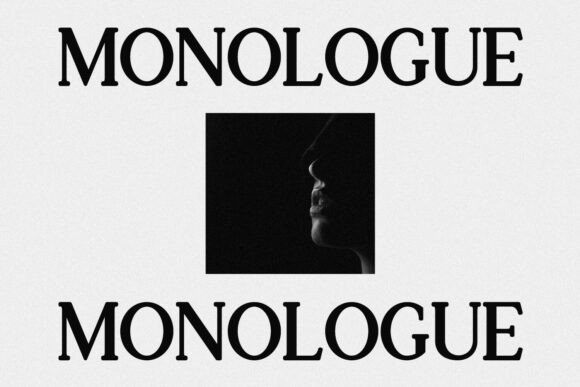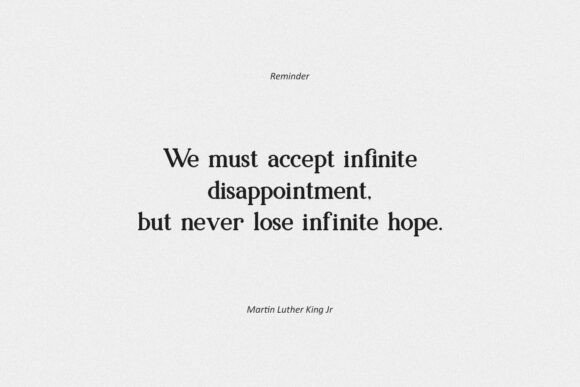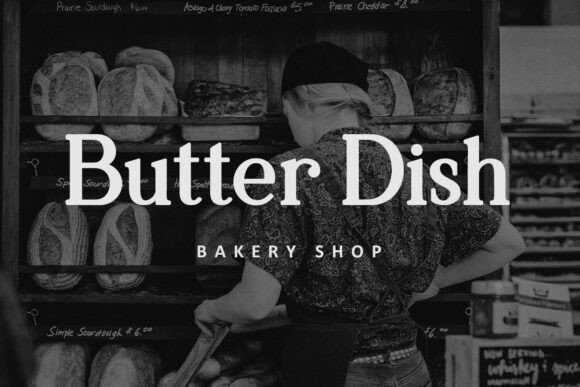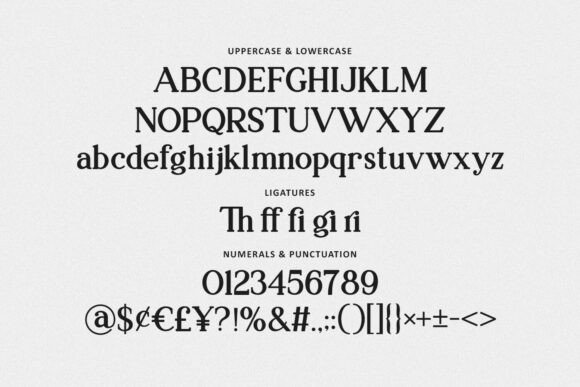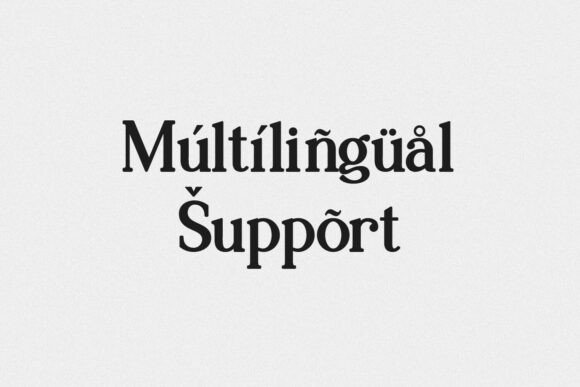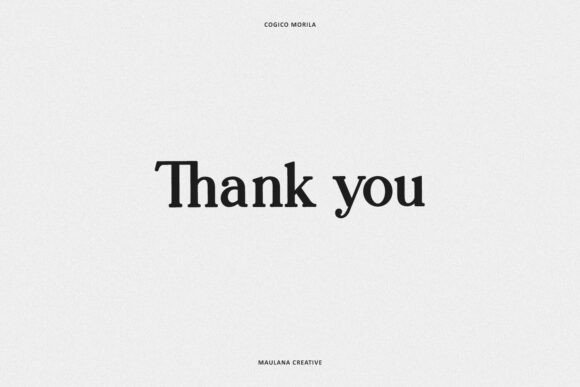
Cogico Morila Font: A Timeless yet Fresh Serif Font for Modern Designs
In the world of typography, a font can make or break a design. It’s the foundation upon which the entire visual identity is built. For designers and crafters looking for a serif font that exudes intelligence, confidence, and a touch of creativity, Cogico Morila is an excellent choice. This classic-meets-modern serif font is designed to elevate your typography, bringing a unique blend of elegance and sophistication to your designs.
A Perfect Balance of Tradition and Modernity
Cogico Morila strikes a delicate balance between traditional serif structure and contemporary details, resulting in a timeless yet fresh personality. The font’s elegant curves, distinctive terminals, and carefully crafted ligatures make it perfect for a wide range of applications, from editorial designs and branding to book covers, headlines, and high-impact logos.
One of the standout features of Cogico Morila is its unique approach to serif design. The font’s classic roots are evident in its traditional serif structure, while its modern twist is reflected in the subtle creative edge that sets it apart from more traditional serif fonts. This balance makes Cogico Morila an incredibly versatile font, suitable for both minimalist brand identities and refined magazine layouts.
Distinctive Letterforms and Ligatures
Cogico Morila’s distinctive letterforms are a key element of its appeal. The font’s unique âgâ and other letterform quirks add just the right amount of flair, making it stand out without overpowering your design. The carefully crafted ligatures also contribute to the font’s elegant and sophisticated feel, allowing you to create beautiful, flowing text that engages and captivates your audience.
Cogico Morila is a font that can be used in a variety of contexts, from editorial designs and branding to book covers, headlines, and high-impact logos. Its versatility makes it an excellent choice for designers and crafters looking for a font that can adapt to different design requirements.
For editorial designs, Cogico Morila’s elegant curves and classic serif structure make it an excellent choice for magazine layouts, newspapers, and books. Its modern twist also makes it suitable for branding and advertising, where a fresh and creative approach to typography can make a significant impact.
Professional Style and Typographic Versatility
Cogico Morila delivers professional style and typographic versatility, making it an excellent addition to any designer’s toolkit. The font’s ability to strike a balance between traditional and modern elements makes it a valuable asset for designers looking to create unique and captivating designs.
Whether you’re working on a minimalist brand identity or a refined magazine layout, Cogico Morila is a font that can help you achieve your design goals. Its timeless yet fresh personality, elegant curves, and distinctive letterforms make it an excellent choice for designers and crafters looking for a serif font that can elevate their typography.
In conclusion, Cogico Morila is a classic-meets-modern serif font that offers a unique blend of intelligence, confidence, and creativity. Its elegant curves, distinctive terminals, and carefully crafted ligatures make it perfect for a wide range of applications, from editorial designs and branding to book covers, headlines, and high-impact logos.
With its perfect balance of tradition and modernity, Cogico Morila is a font that can help you create stunning designs that engage and captivate your audience. Whether you’re a designer or crafter, Cogico Morila is an excellent addition to your toolkit, offering professional style and typographic versatility that can elevate your typography and take your designs to the next level.